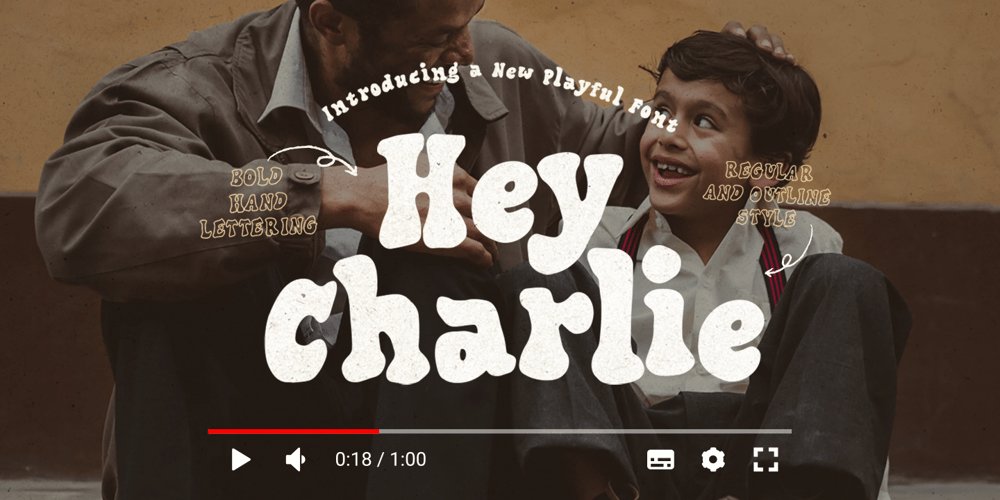
Hey Charlie Font Family was designed by Sarid Ezra and published by Sarid Ezra. Hey Charlie contains 2 styles and family package options. Hey Charlie is a hand lettered serif with rough and bold looks. You can use this font for any purposes such as poster, quotes, tittle, and branding. With outline version, you can make your designs look more interesting. This font also support multi language.